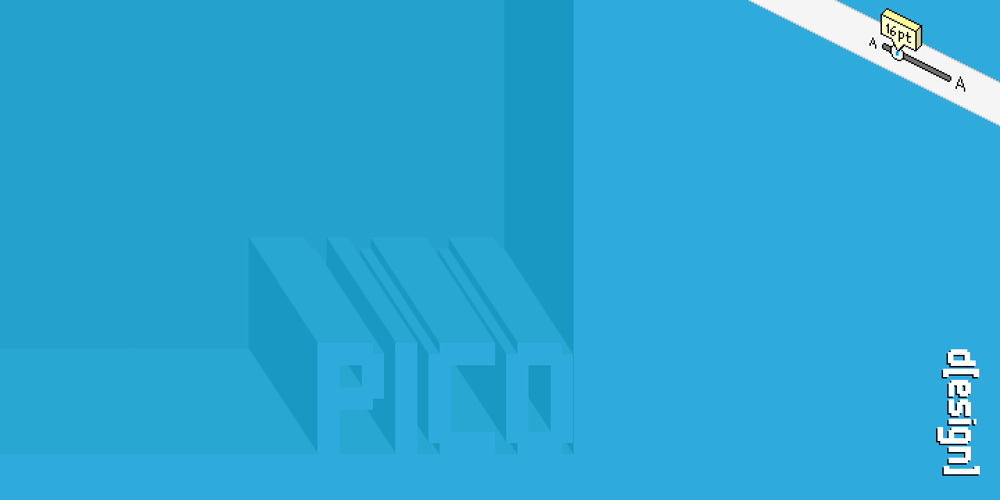
Pico Font Family was designed by Domenico Mazza, Aleksandr Savenkov and published by d[esign]. Pico contains 1 styles and family package options. Pico is the pixel font that works small and large—from web buttons to LED boards. The native font size is 16px, however you can work within any size that’s a multiple of 2. Pico is featured in the gorgeous mobile game Space Age: A Game of Cosmic Adventure by Big Bucket! The latest version of Pico (1.300) includes a staggering 454 new characters (from 235 to 689)! This update includes support for south eastern European and all new Cyrillic, Hebrew, Greek and math characters. Latin characters and kerning have also been updated and improved for legibility.